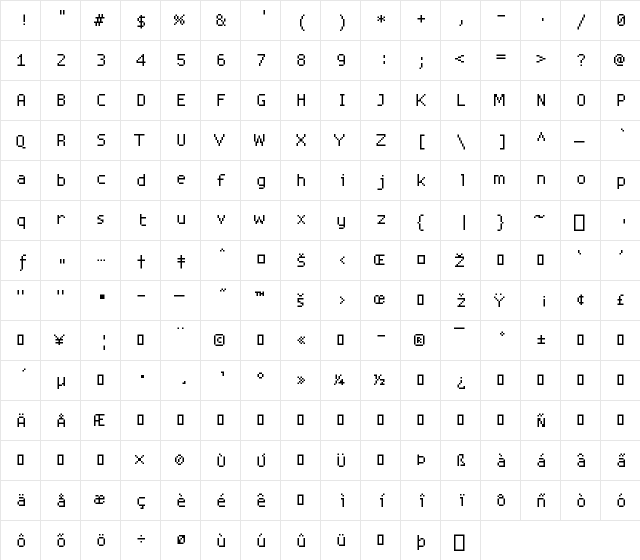
ProggySquareTTSZ Regular
Design Context for ProggySquareTTSZ Typeface
ProggySquareTTSZ is a composed and adaptable typeface that performs quietly and consistently across a wide range of design contexts.